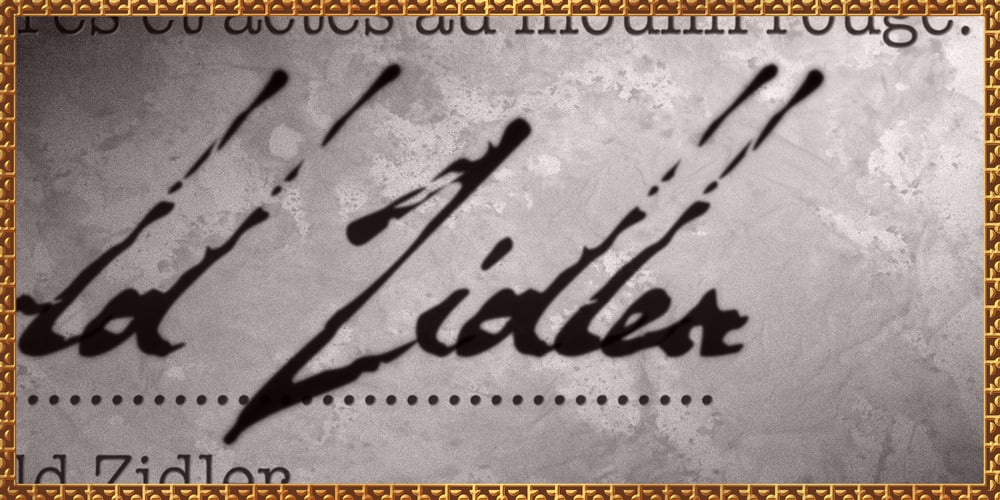
Zidler Font Family was designed by Michael Kovacevich and published by MKGD. Zidler contains 1 styles and family package options. One of my all time favourite movies is Baz Luhrmann’s Moulin Rouge. In it, there’s a brief scene where the proprietor of the Moulin Rouge (Harold Zidler) signs away the deeds to the establishment. The actual signing of his signature is what motivated me to create this script font. Although it’s not an exact replica of the character’s hand, I like to think that it has the same crisp immediacy of the original. With its consistent oblique slant, narrow and long ascenders and descenders, and the occasional blobbing of letters, the overall effect, gives the appearance of a correspondence penned by lamplight while a storm rages outside.